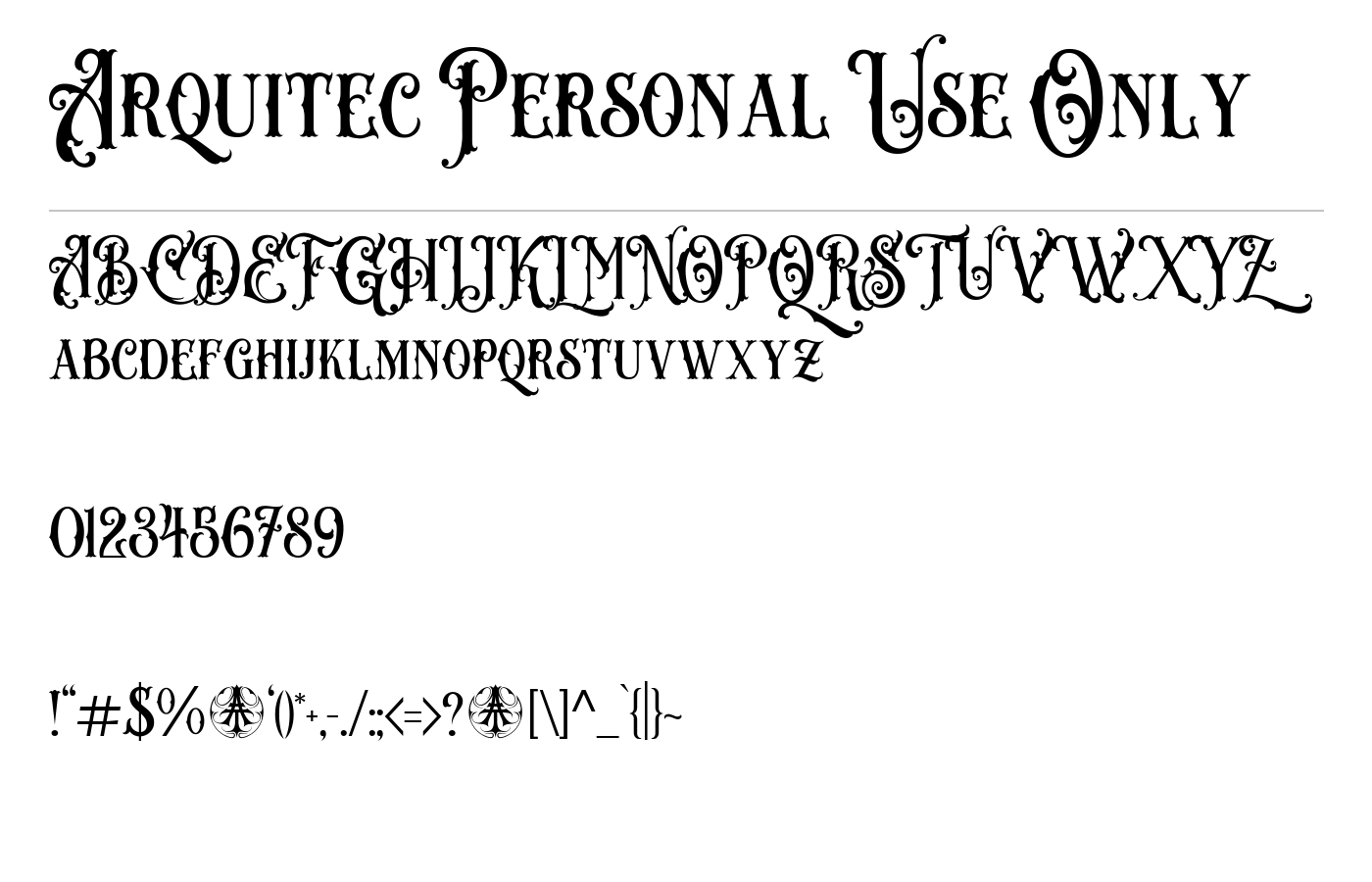
Arquitec Personal Use Only is a decorative serif font with an ornate, vintage flair, featuring highly stylized capital letters embellished with intricate swirls and flourishes. Its narrow proportions and sharp contrasts between thick and thin strokes give it a dramatic, elegant look perfect for eye-catching headlines, logos, or branding that seeks a historical or Victorian-inspired aesthetic. This font works best in display settings where its detailed design can shine without compromising readability.
Arquitec Personal Use Only Font
About Arquitec Personal Use Only Font
| Font family | Arquitec Personal Use Only Font |
| Designer | TypeAliens |